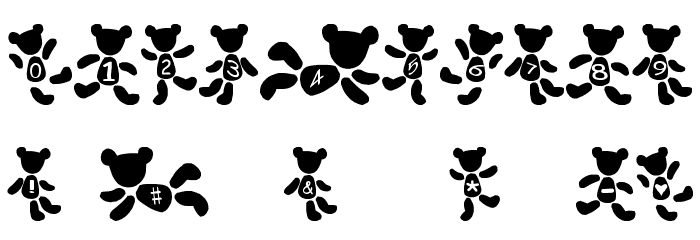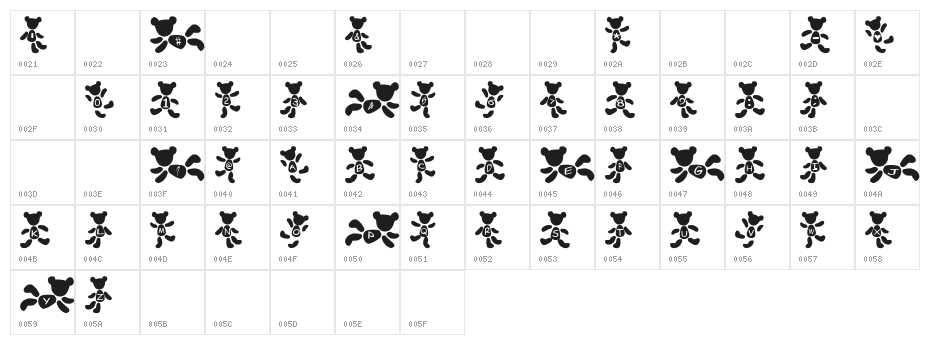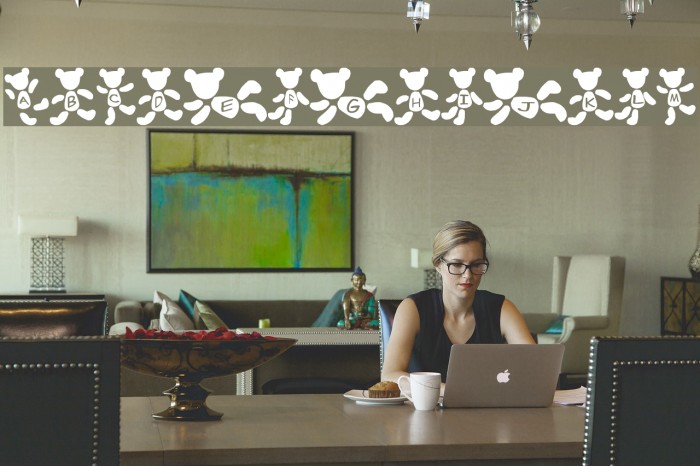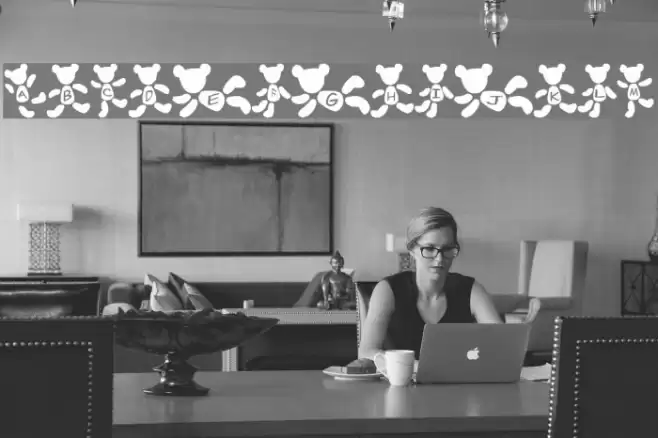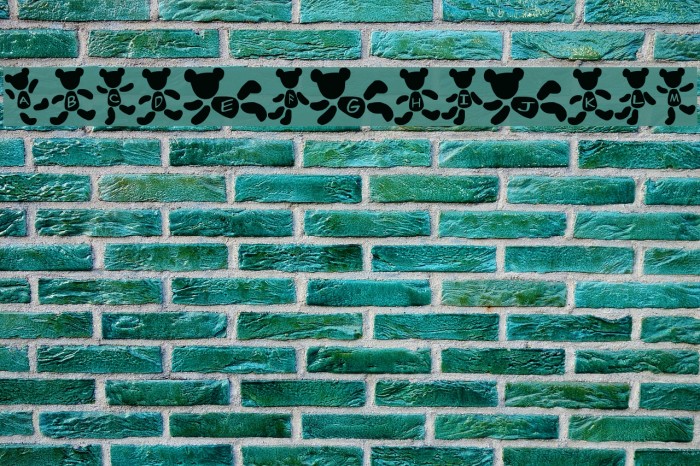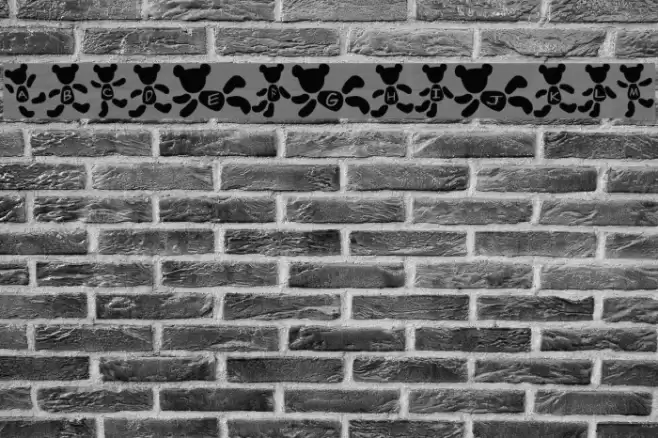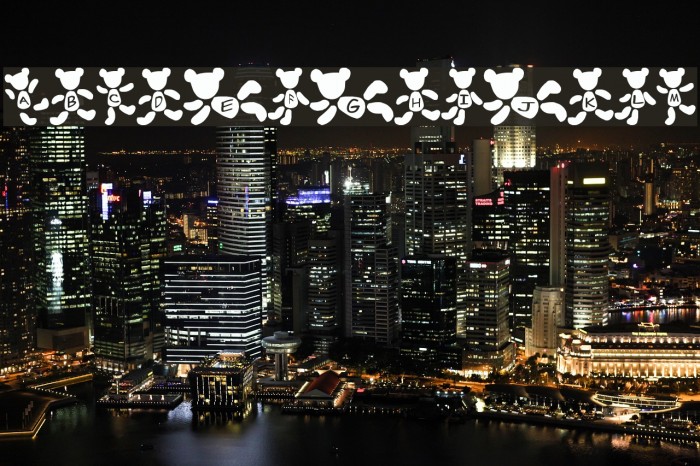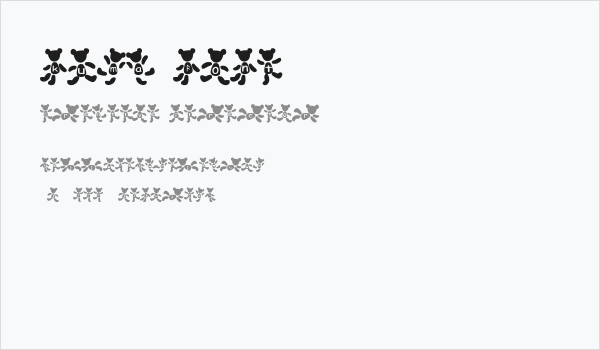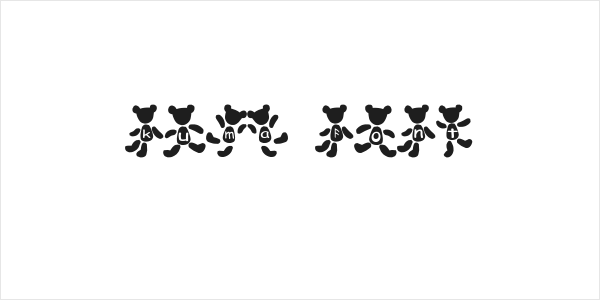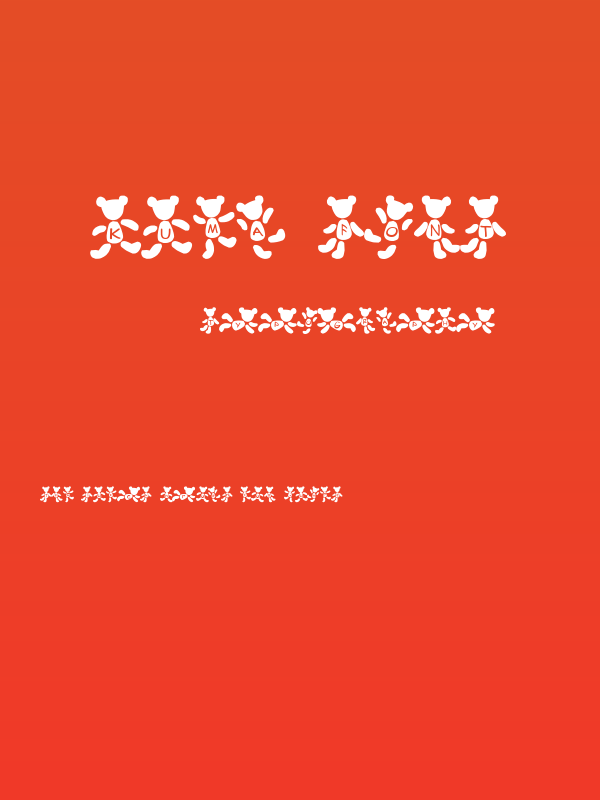
kuma Font Font
kuma Font Description
This playful and whimsical font features characters embedded within teddy bear shapes, creating a unique and charming visual appeal. Each letter and number is creatively integrated into the silhouette of a bear, making it ideal for projects that require a fun and lighthearted touch. The font maintains a consistent style across uppercase, lowercase, and numeric characters, with special symbols also following the bear motif. The design is bold and eye-catching, perfect for capturing attention in children's materials, playful branding, or themed events.
| Overall Style | Whimsical |
| Proposed Projects | Ideal for children's books, playful branding, themed party invitations, and educational materials. |